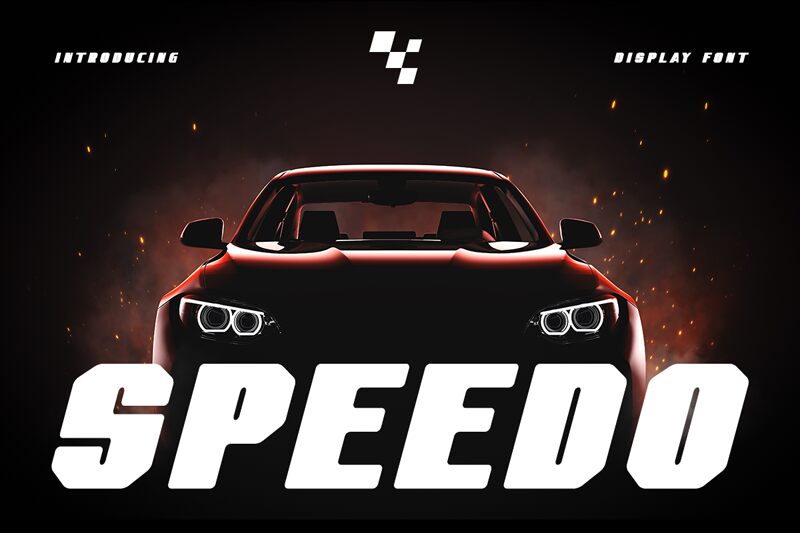
Speedo
Speedo by Kong Font races onto the creative scene, channeling the raw energy of the automotive world into its techno, extra-bold character. This display font embodies the essence of a speedometer's dynamic precision and is engineered to capture the essence of movement and velocity in its semi-expanded width.
With its straightforward yet impactful design, Speedo eschews unnecessary adornments for clean lines that speak to speed enthusiasts and designers alike. Its simplicity is its charm, commanding attention without overwhelming, making it an ideal choice for event titles where cars rule the road – from high-octane races to adventurous off-roading escapades.
For projects that aim to rev engines and quicken pulses, Speedo's unyielding presence works seamlessly. It doesn't just convey information; it sets a tone, builds anticipation, and ensures your message isn't just seen—it's felt. When your event needs to draw crowds with a promise of excitement and camaraderie among automotive aficionados, trust in Speedo Display Font to fuel your vision into overdrive.